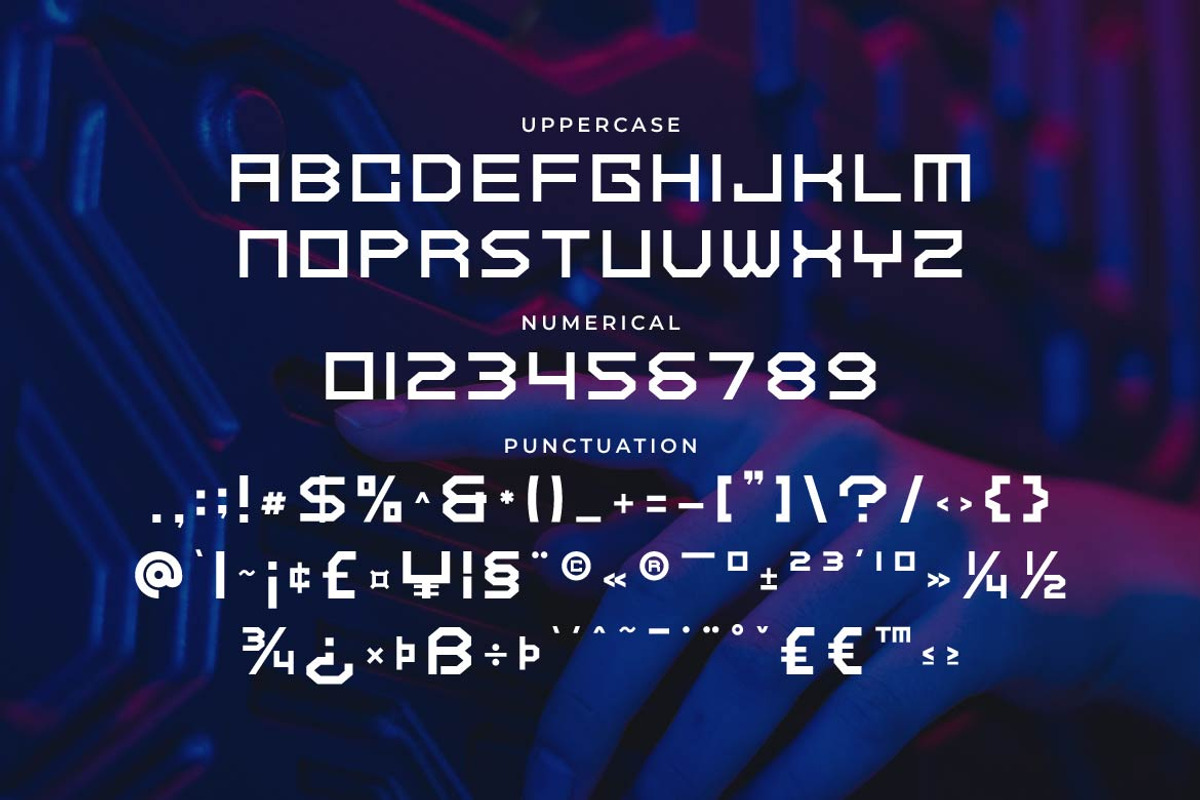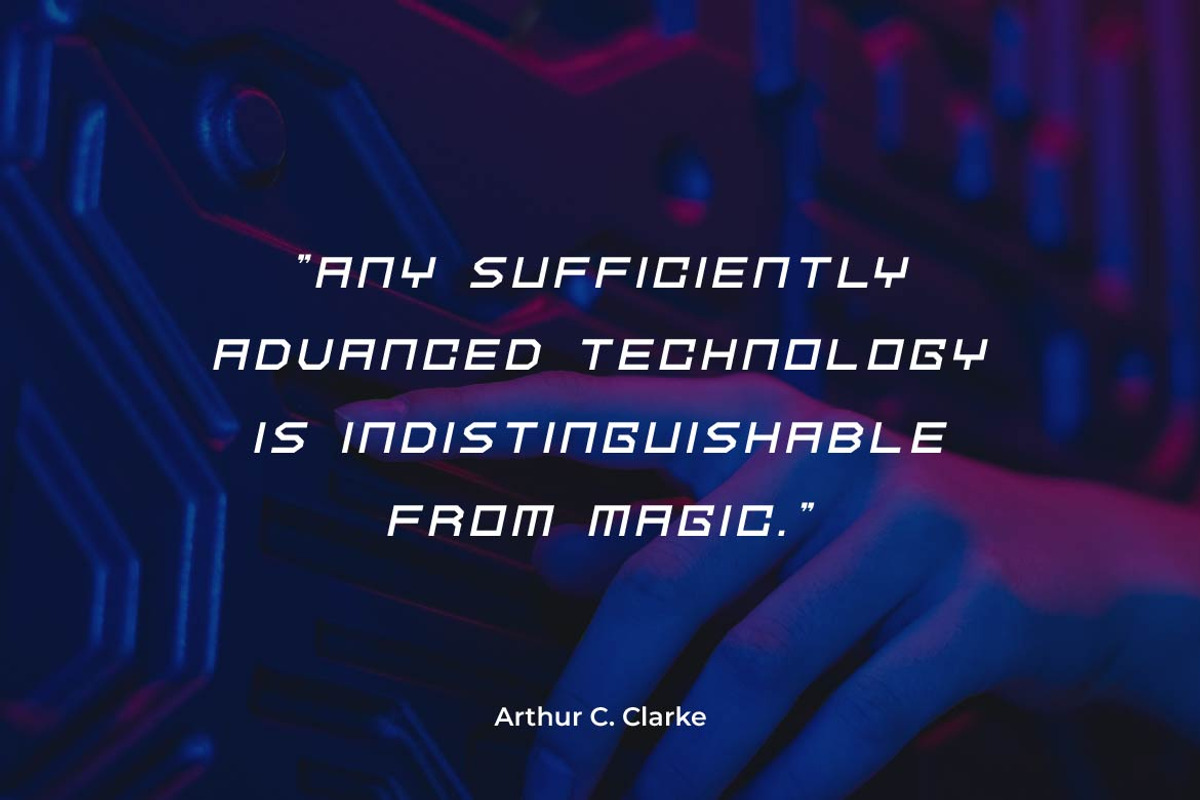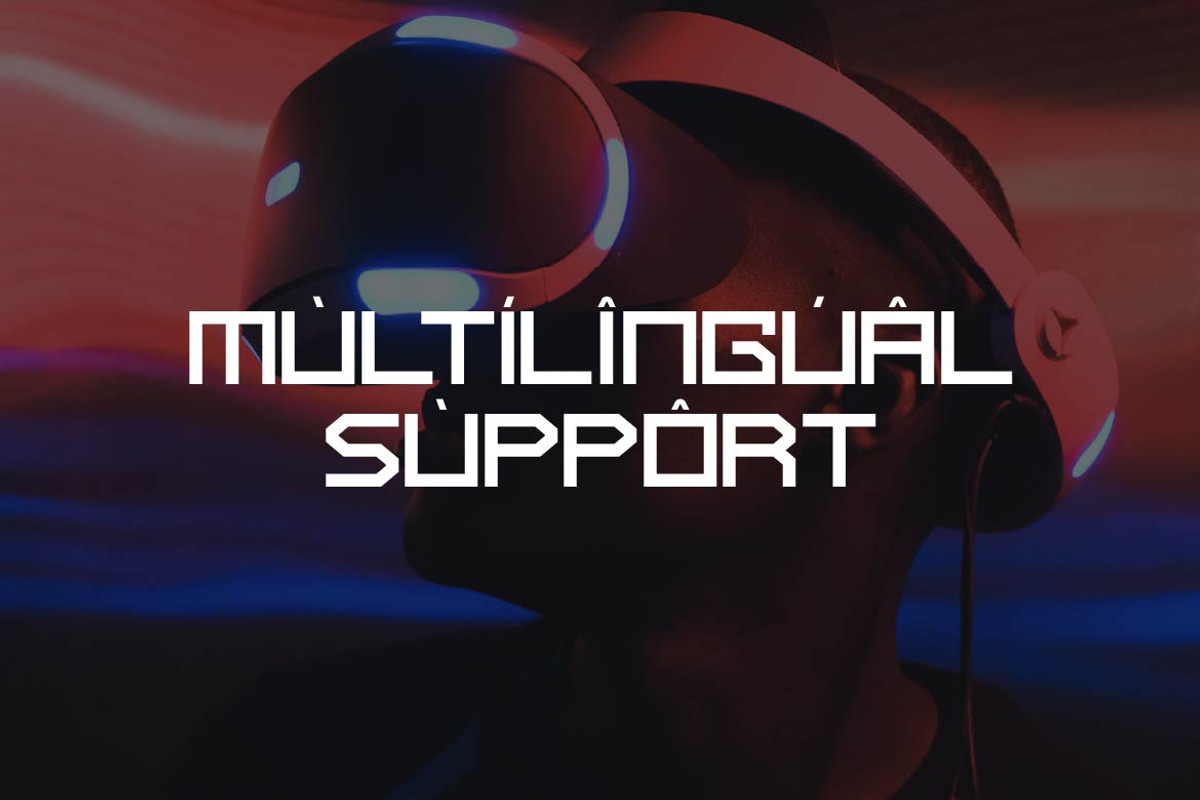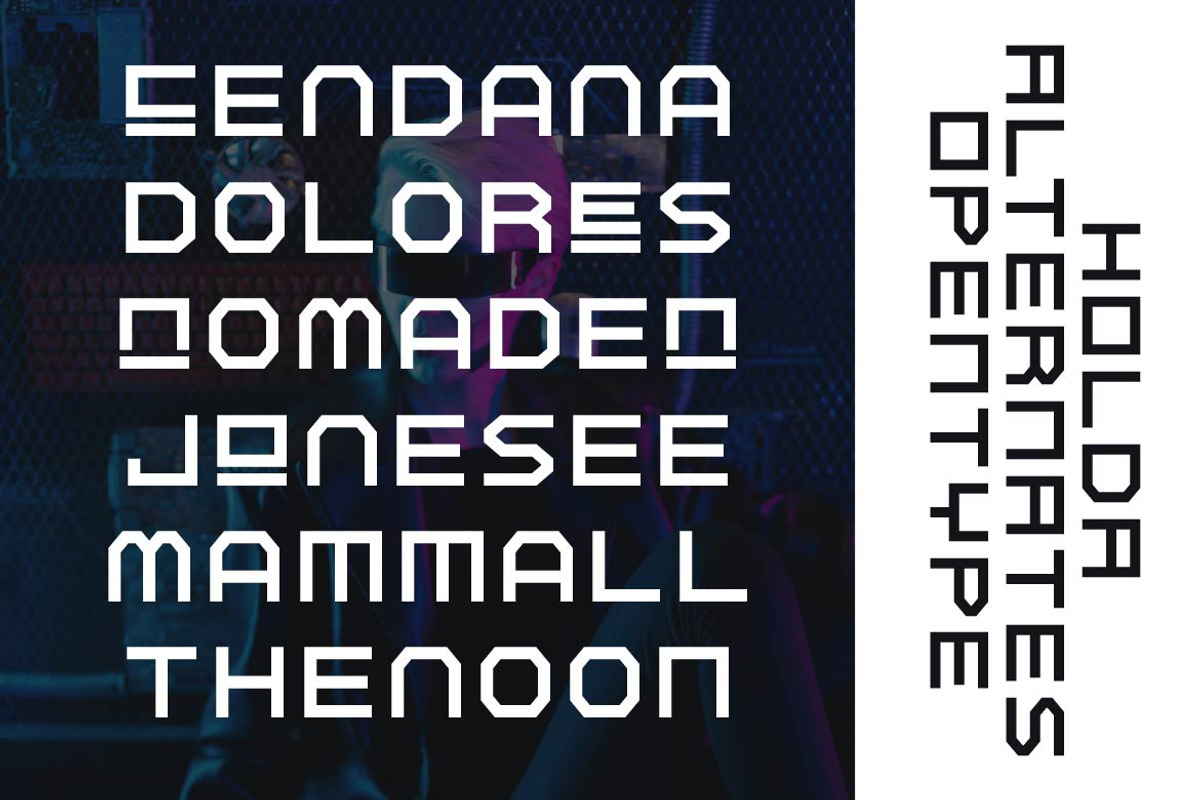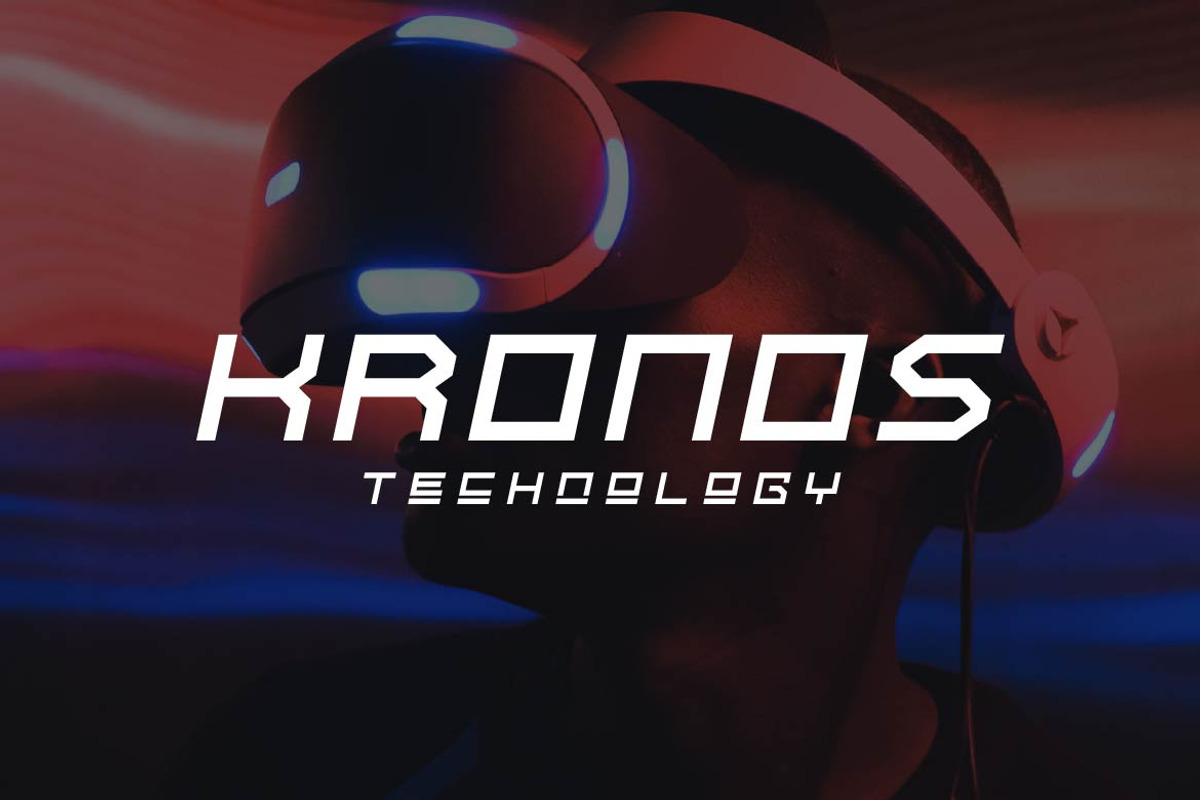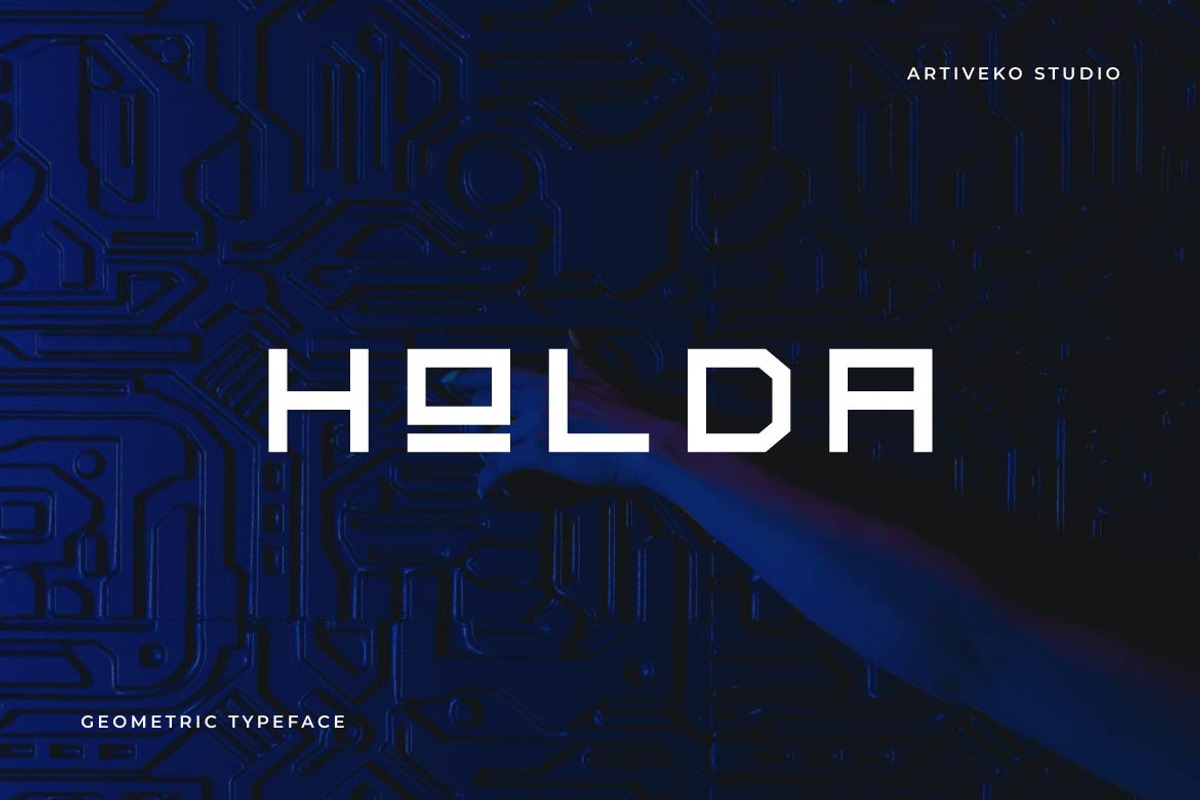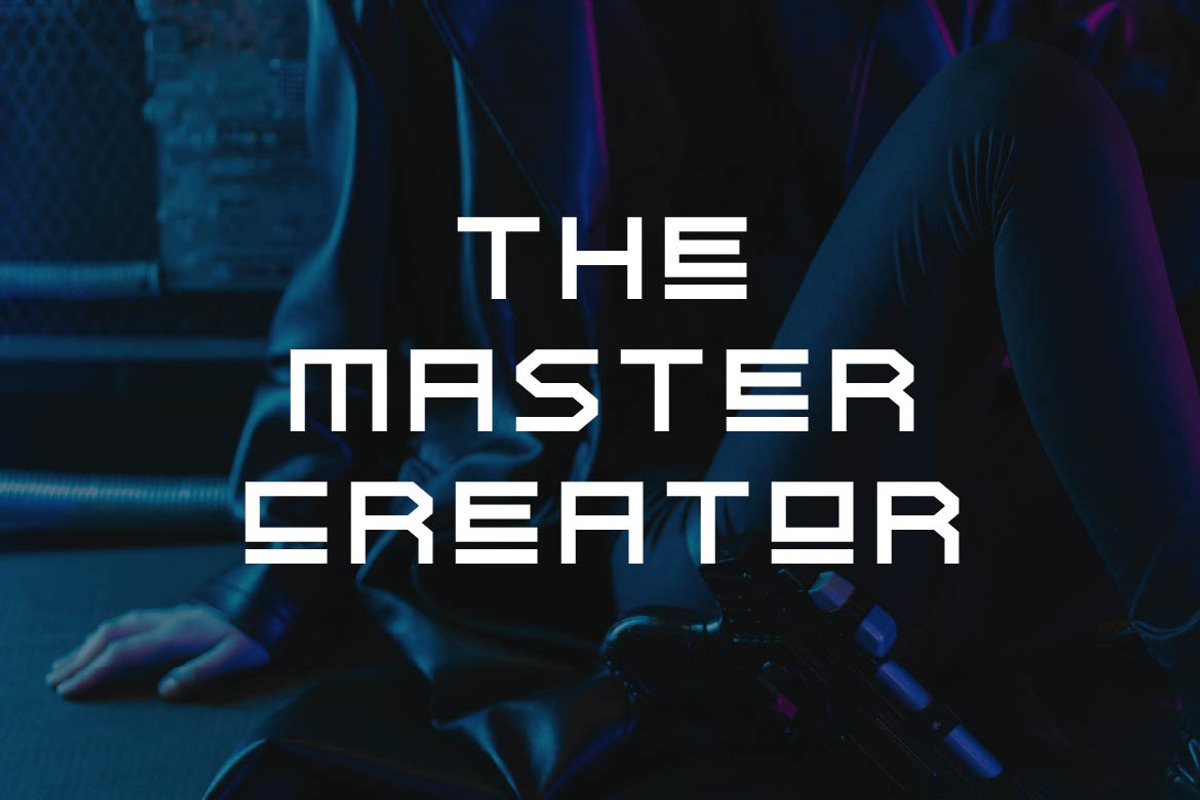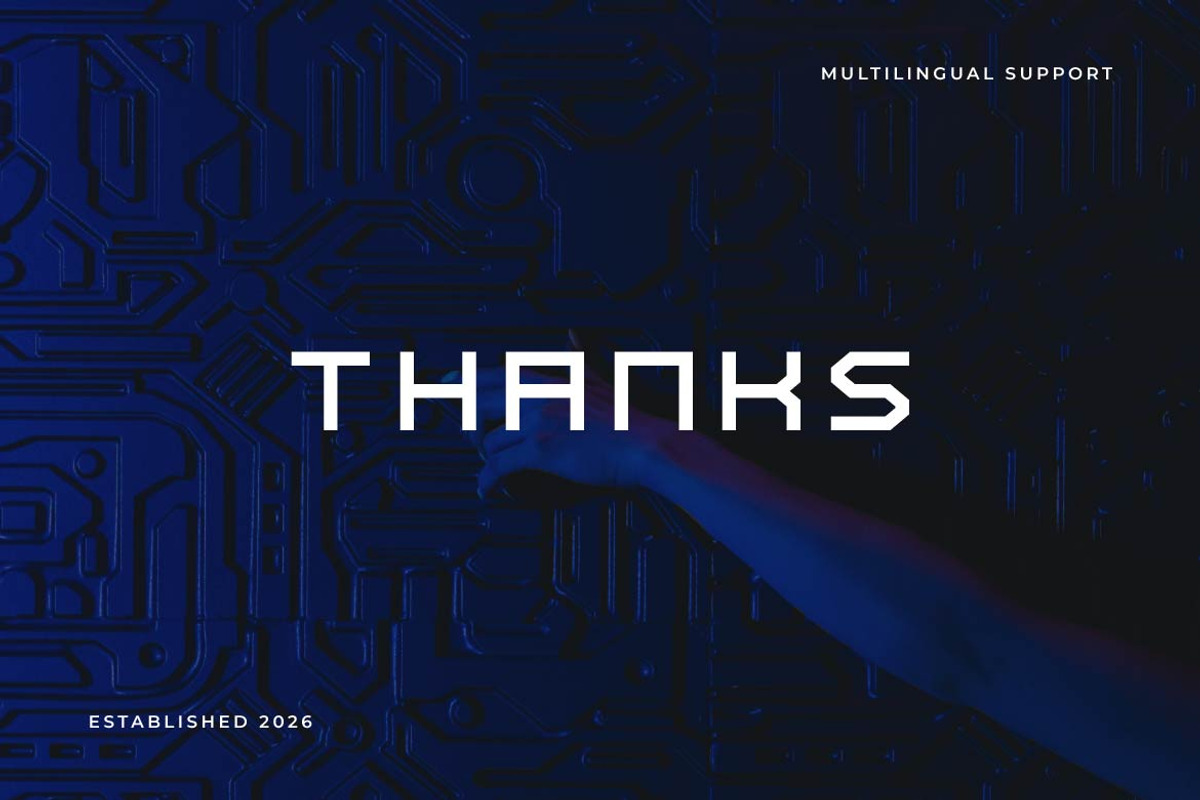
Holda – Geometric Technology Font
Holda is a geometric technology typeface designed for the next generation of digital innovation. Built with precise geometric construction, clean lines, and contemporary proportions, Holda delivers a modern aesthetic that reflects intelligence, performance, and technological advancement.
Ton of glyphs